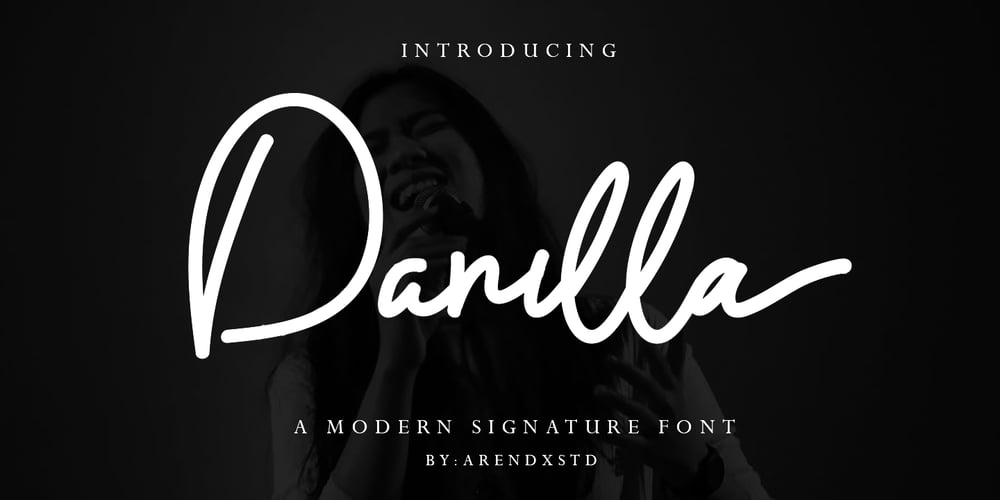
Danilla Font Family was designed by Asep Rendi and published by Arendxstudio. Danilla contains 1 styles and family package options. Danilla Signature Modern script is very suitable for your design project because it is very elegant and you you can apply it on business cards, posters, branding names, logos, your products and others. It’s a handwritten font. This font includes all upper and lower case standard characters, punctuation, numerals and ligatures.